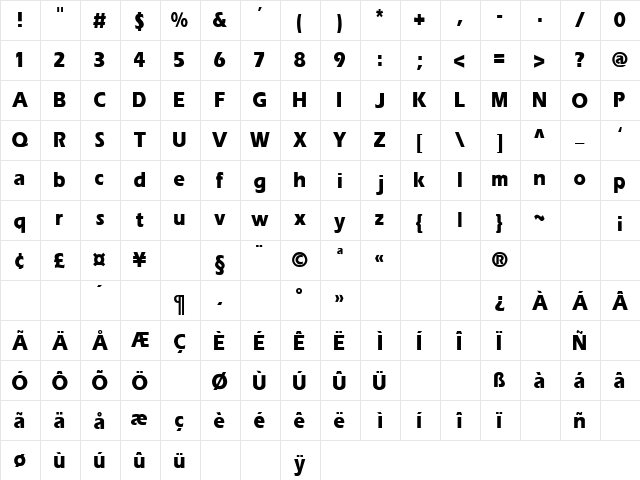
Presence 11 Regular
Design Context for Presence 11 Typeface
Presence 11 offers clean, dependable letterforms without strong stylistic allegiance, making it a practical choice for designers who need flexibility.